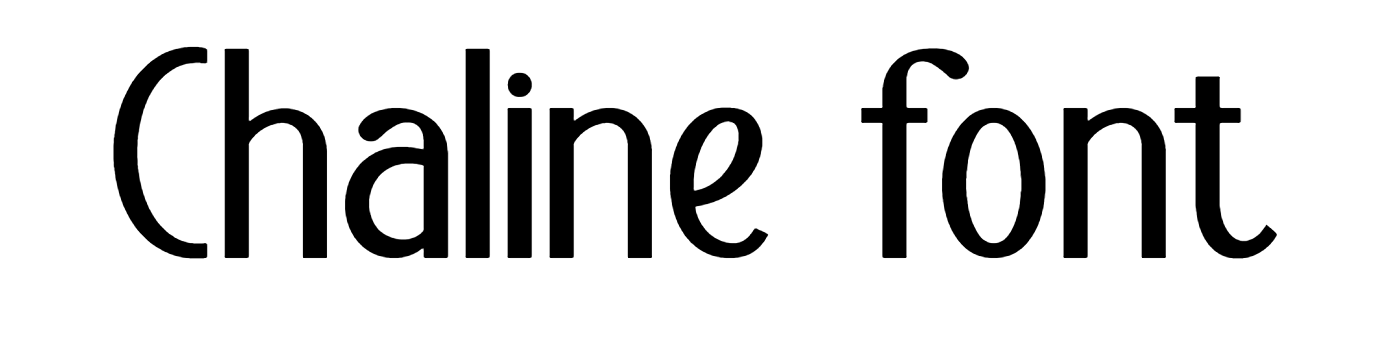
Chaline
Chaline is a sans serif font created by Flawless And Co. It has a clean, no-nonsense look that fits modern brands and websites. You can download it for free and test it with your own words in the preview above.
What You Can Type With Chaline
Chaline has the full alphabet in upper and lowercase. There are no numbers, so you'll need a second font for dates, prices or phone numbers. Punctuation is limited, so look at the character map if you need a specific symbol. It doesn't include accented letters such as é or ñ, which makes it an English-only font.
Where Chaline Works Best
Designers usually reach for fonts like Chaline when they're making websites, app screens and clean logos. It works for headings and body text alike. If the download has several weights, use a heavier one for titles and a lighter one for paragraphs.
Does Chaline support accented letters?
No. Chaline has no accented letters such as é, ñ or ü, so it's best for English text.
Does Chaline have numbers?
No. Chaline has no numbers, so pair it with another font for dates, prices or phone numbers.